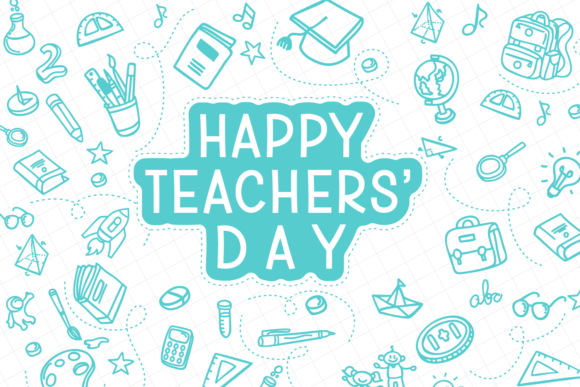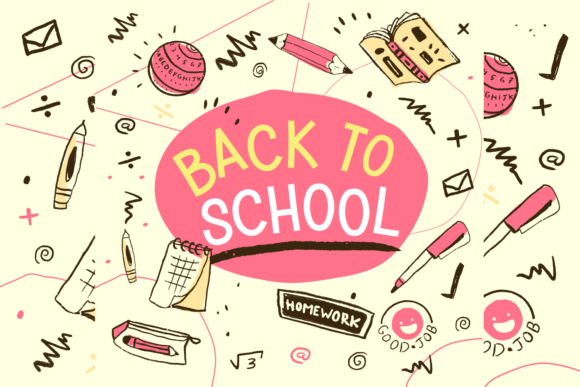
Introduction to Ningst Lovely Teacher Font
Have you ever stumbled upon a font that makes your creative project instantly feel more magical? For me, that moment happened when I discovered the Ningst Lovely Teacher Font. I was working on a digital design project, and I wanted to add a touch of whimsy to my design. As I browsed through font options, I came across this adorable display font that seemed to scream “friendliness!” I immediately knew I had to give it a try, and I was blown away by how it elevated my design.
The Ningst Lovely Teacher Font is a game-changer for designers who want to add a high-quality, playful touch to their work. Its easy-to-read design makes it perfect for a wide range of creative projects, from crafting greeting cards to creating engaging presentations. And the best part? It’s available for free download, complete with a transparent background, making it a valuable design resource for anyone looking to add a little extra love to their work.
Key Features of Ningst Lovely Teacher Font
- Unique and creative design perfect for a high quality educational or teaching project, such as a teacher’s resource or a school brochure.
- Designed with a playful and elegant style, perfect for a creative project that requires a unique touch.
Honest Review: Ningst Lovely Teacher Font
I recently came across the Ningst Lovely Teacher Font, and I must say, it’s a high quality design resource that’s perfect for any creative project. The font is a free download, which is a major plus for designers on a budget. The transparent background makes it easy to layer over other design elements, giving you endless possibilities for customization.
- ✨ High quality design that’s perfect for educational or feminine-themed projects
- ⚠️ Limited character set, which may not be suitable for long-form text
- ⚠️ May not be suitable for bold or condensed font styles
Overall, I’m impressed with the Ningst Lovely Teacher Font. It’s a great design resource that’s perfect for creative projects, and the free download is a major bonus. While it may have some limitations, it’s still a valuable addition to any designer’s toolkit.
The Ningst Lovely Teacher Font is ideal for educational materials, such as lesson plans, worksheets, and presentations. It’s also suitable for creative projects, such as infographics, posters, and social media graphics.